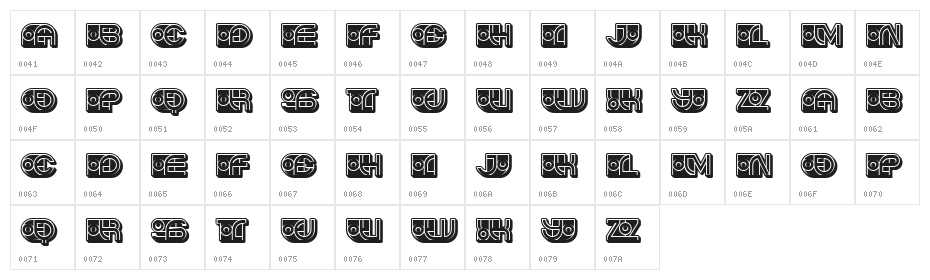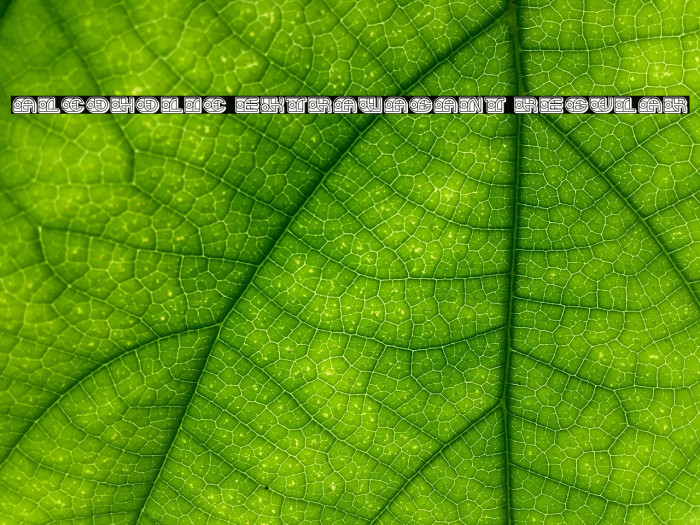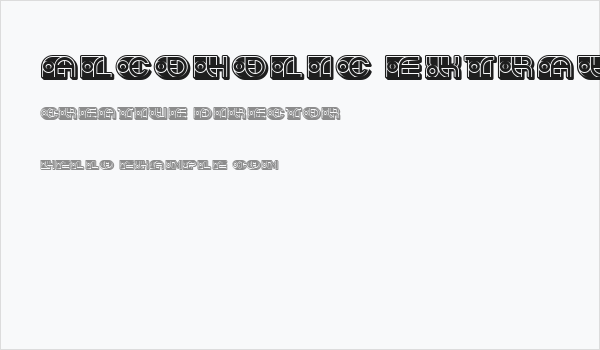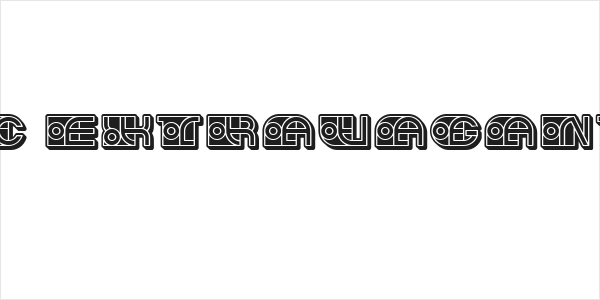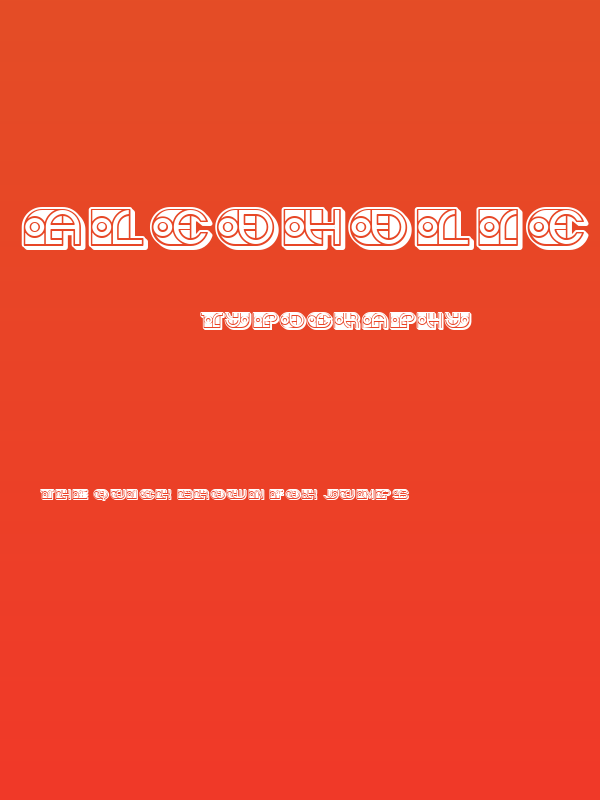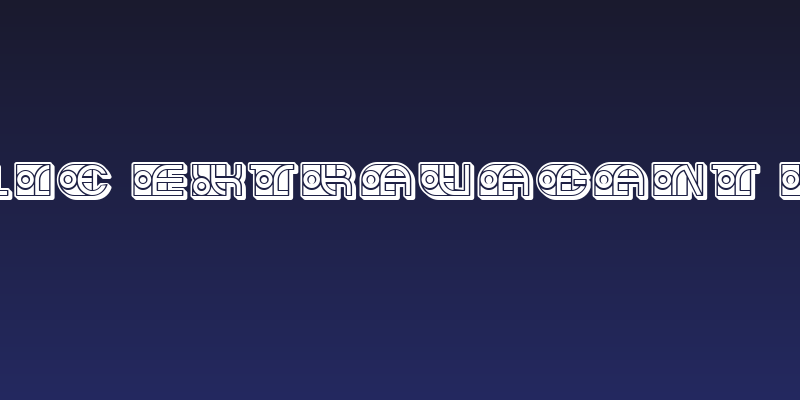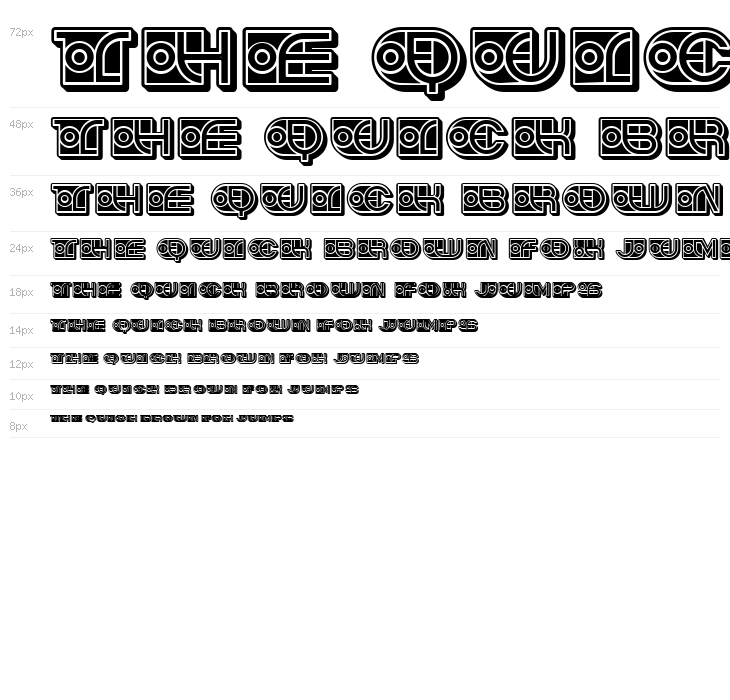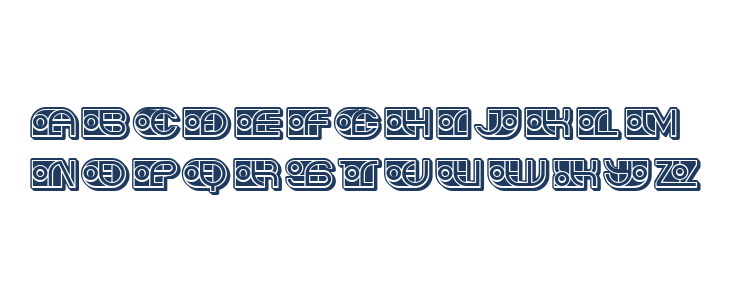
Alcoholic Extravagant Regular Font
Alcoholic Extravagant Regular Description
This font features an intricate and decorative design with a bold, geometric style. Each character is enclosed within a double-lined border, creating a sense of depth and complexity. The letters are adorned with circular and angular embellishments, giving them a unique and extravagant appearance. The font maintains a consistent structure across both uppercase and lowercase letters, as well as numbers and special characters. Its elaborate design makes it stand out, suitable for projects that require a touch of elegance and flair.
| Proposed Projects | Ideal for branding, posters, event invitations, and any project that requires a luxurious and eye-catching typeface. |